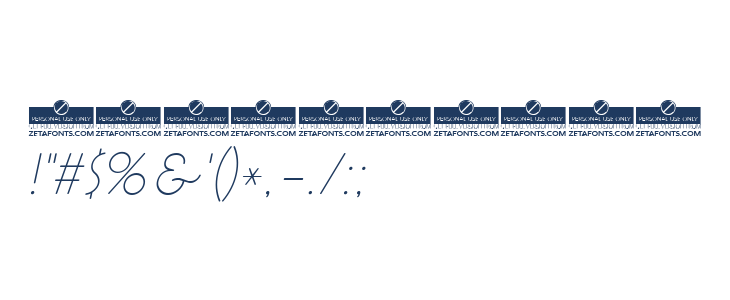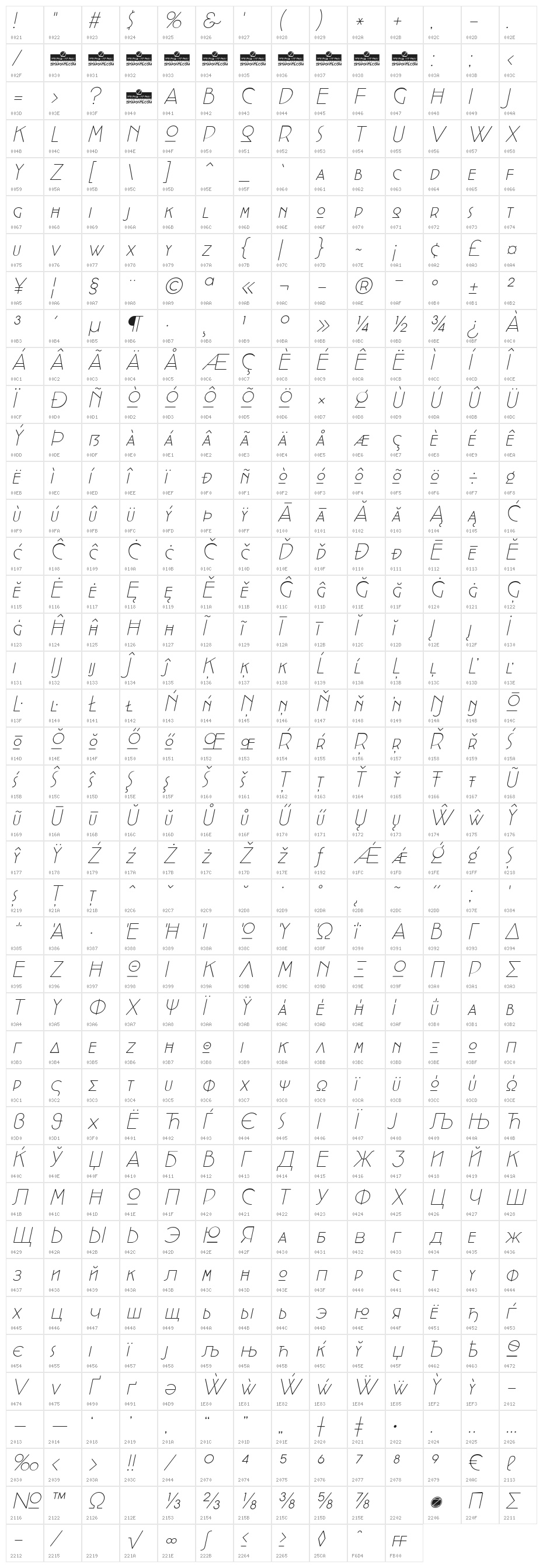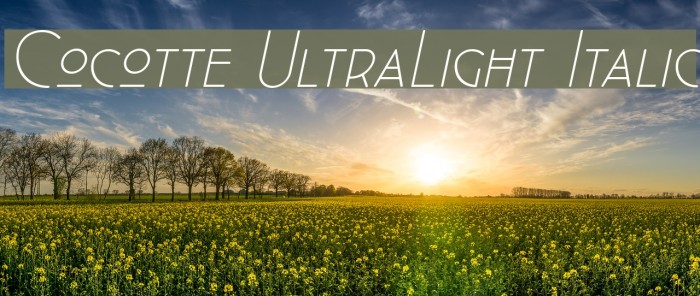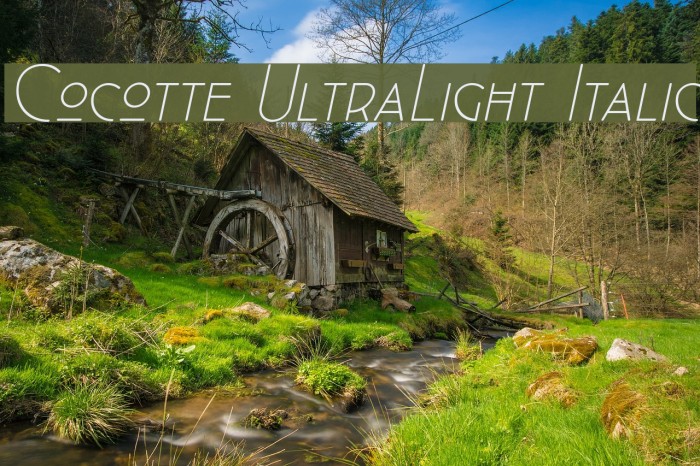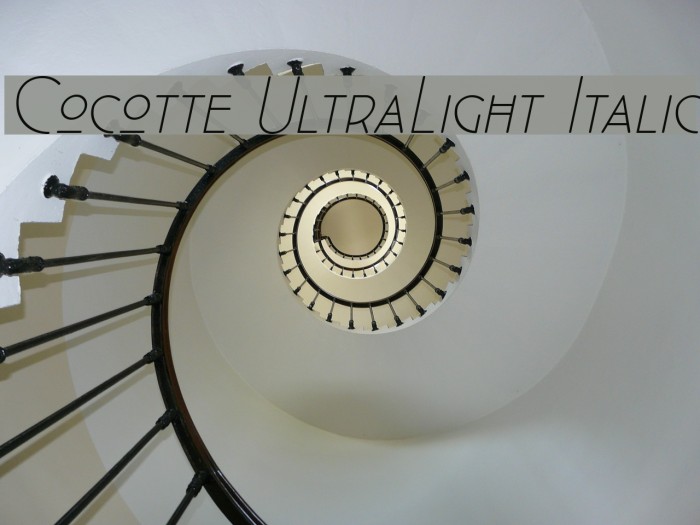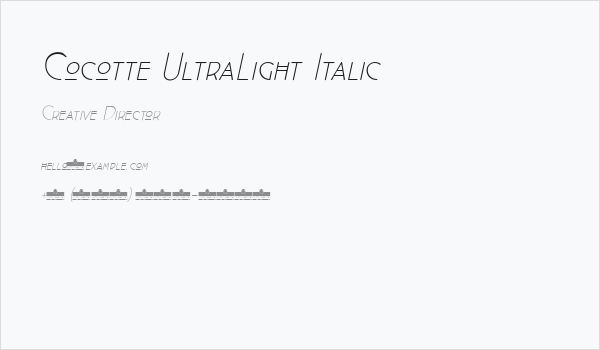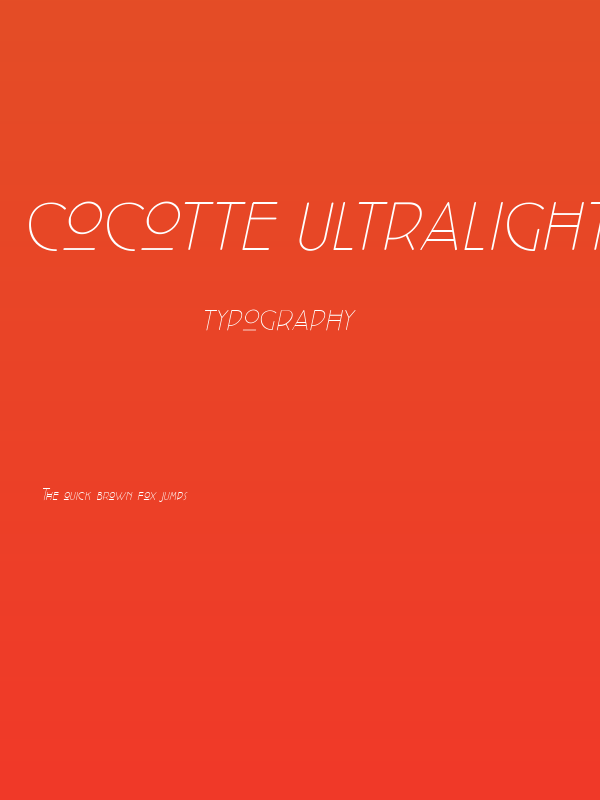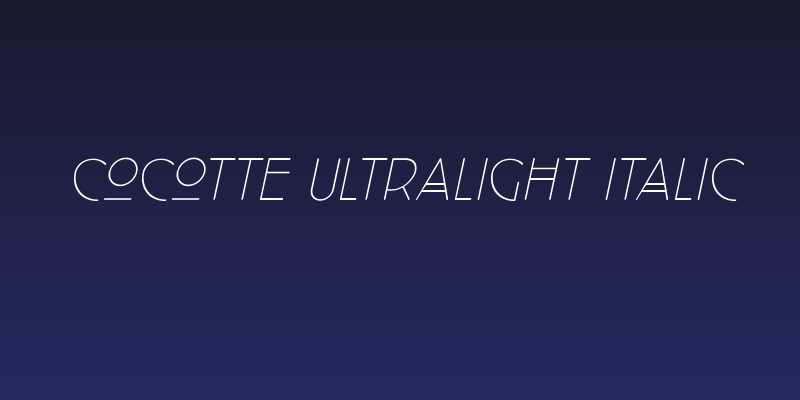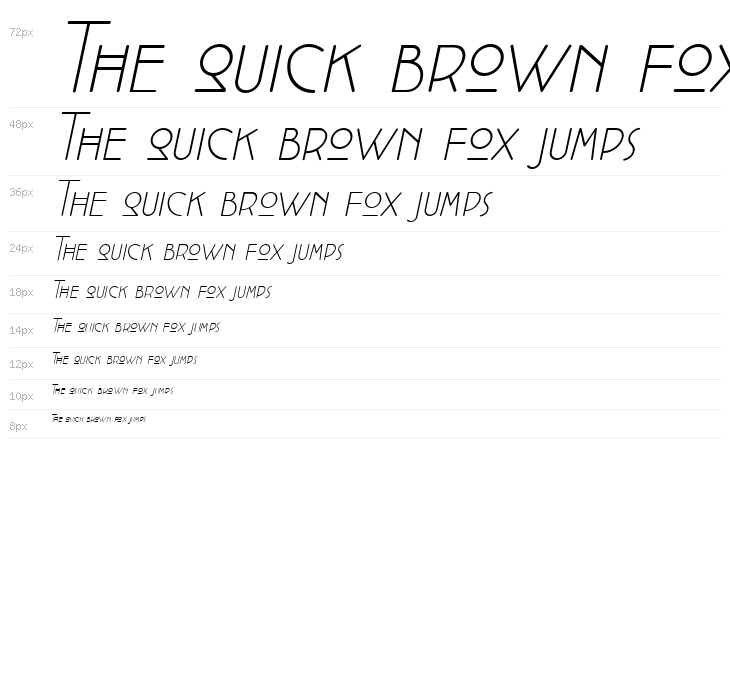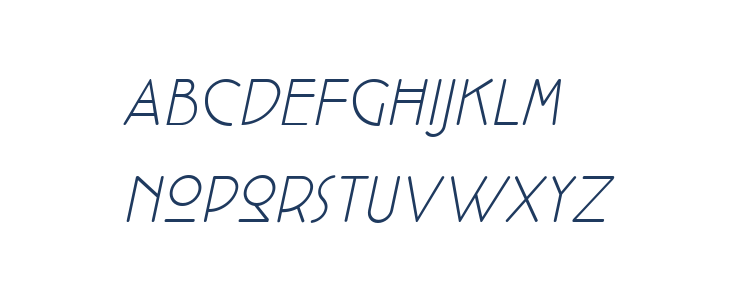
Cocotte UltraLight Italic Font
Cocotte UltraLight Italic Description
This font exhibits a sleek and modern design with ultra-light strokes and a distinct italic slant. The characters are elegantly elongated, giving a sense of sophistication and style. The uppercase and lowercase letters maintain a consistent flow, with unique geometric elements that add a contemporary flair. The numerals and special characters are designed with the same attention to detail, ensuring uniformity across all glyphs. The font's minimalistic approach makes it versatile for various design applications, while its italic nature adds a dynamic and forward-moving aesthetic.
| Use Case | Headlines, Logos, Editorials |
| Proposed Projects | Ideal for fashion branding, modern editorial layouts, and sleek product packaging. |